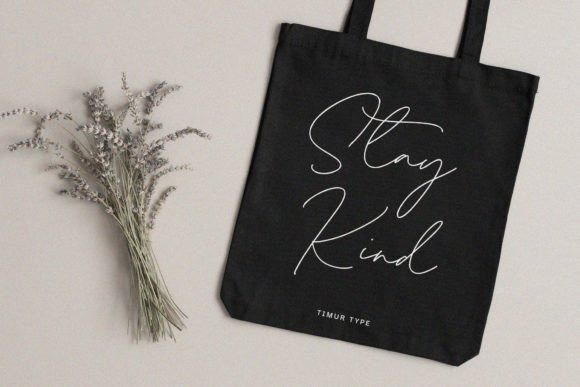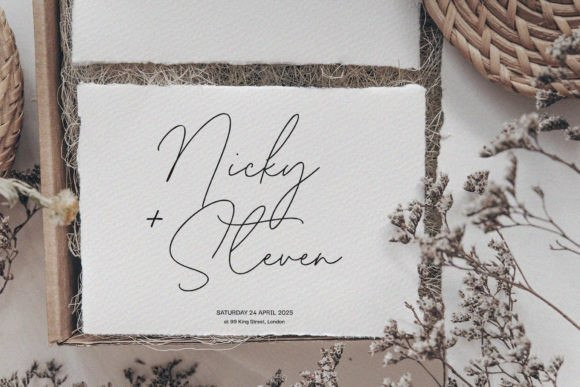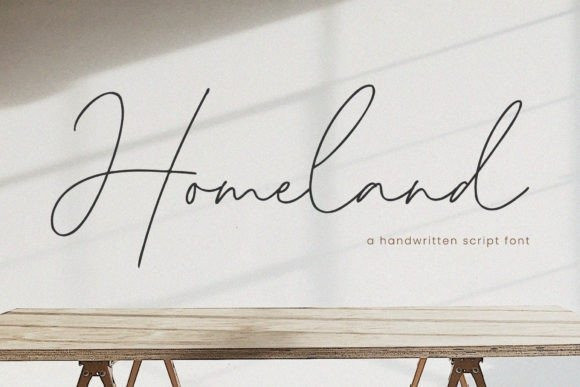
Homeland Font
Homeland Handwritten Font is a stylish and incredibly elegant script font. It looks stunning on wedding invitations, thank you cards, quotes, greeting cards, logos, business cards, and every other design which needs a handwritten touch.